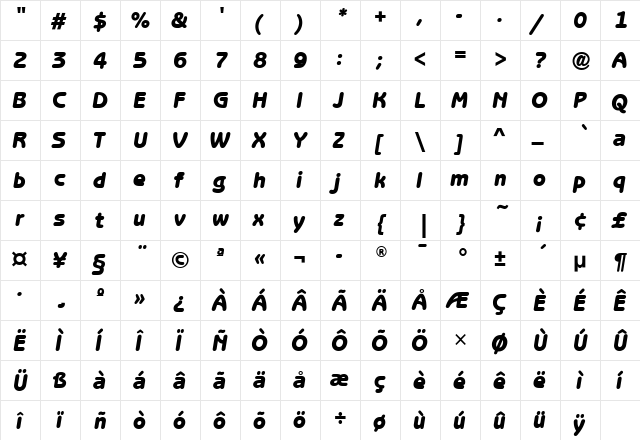
BenguiatGotMdITC Heavy Italic Font Preview
BenguiatGotMdITC Heavy Italic
Design Context for BenguiatGotMdITC Typeface
BenguiatGotMdITC offers clean, dependable letterforms without strong stylistic allegiance, making it a practical choice for designers who need flexibility. The dynamic lean of this cut emphasises speed and emphasis in any layout.
Pro Tip: Try BenguiatGotMdITC for annotation and caption copy alongside an upright companion — the contrast in angle creates a dynamic but ordered typographic system.